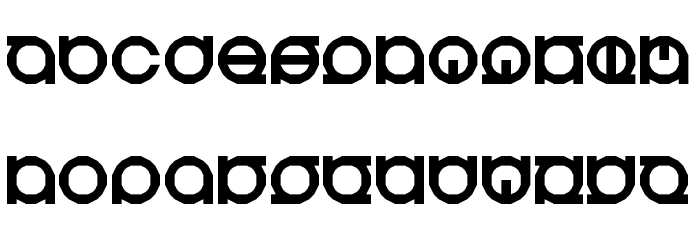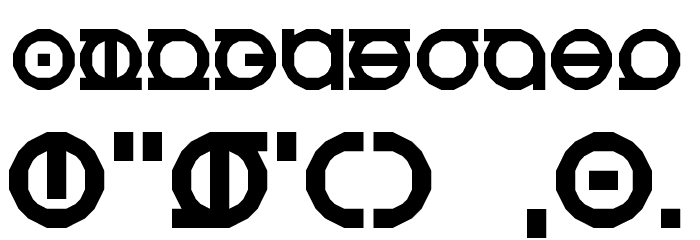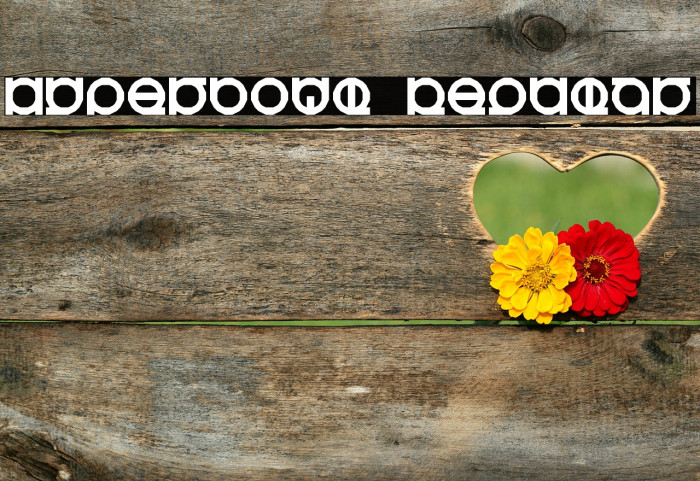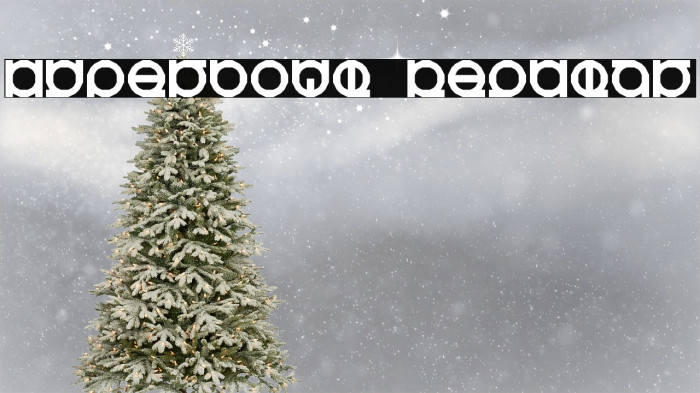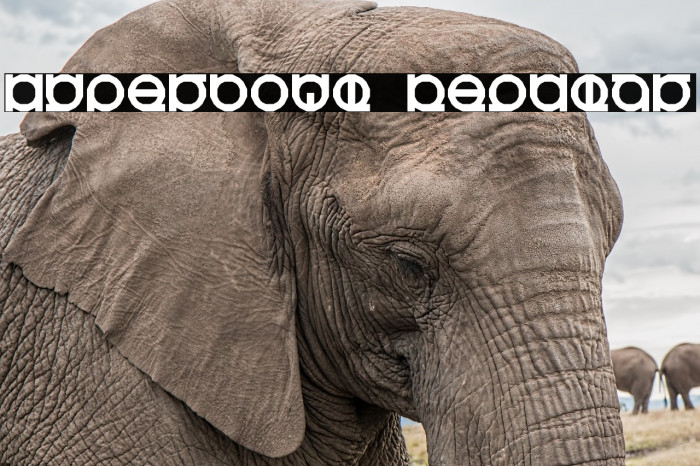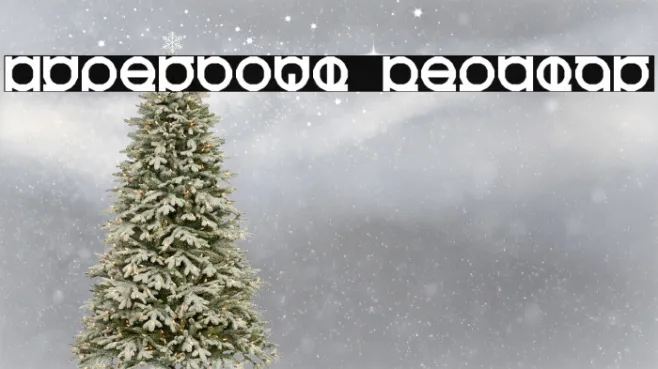
Hyperbowl Regular Font
This font features a unique and futuristic design with geometric shapes and bold lines. The characters are constructed with a combination of circles and straight edges, creating a modern and abstract appearance. The uppercase and lowercase letters maintain a consistent style, with each character exhibiting a symmetrical and balanced form. The numbers and special characters follow the same design principles, ensuring uniformity across the entire typeface. This font's distinct style makes it stand out, ideal for projects that require a contemporary and innovative look.
A futuristic and geometric font with bold lines and symmetrical forms.
- Proposed Projects: Ideal for sci-fi themed designs, technology branding, modern art posters, and innovative product packaging.